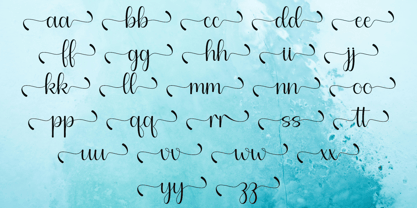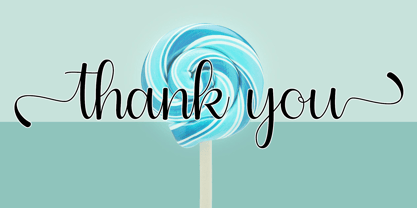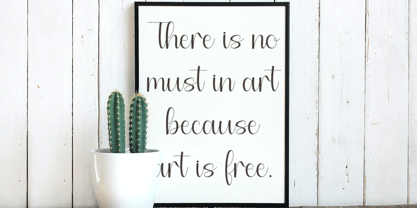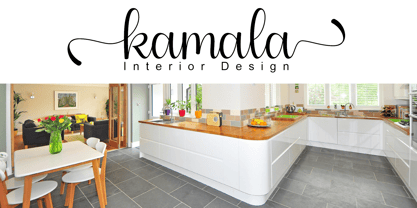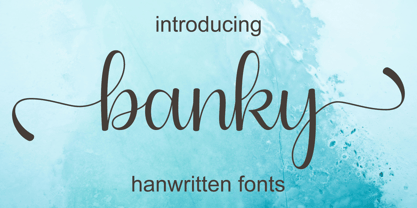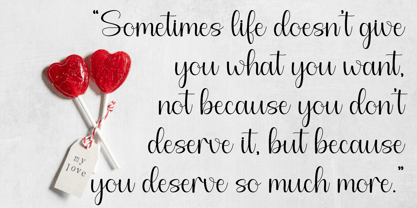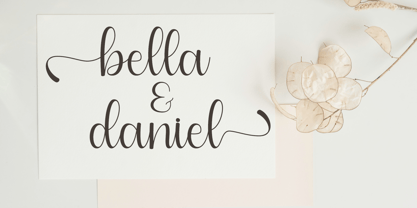
Lentisel
by Hardiboy Design
The Lentisel Font Family was designed by Hardiman Siswanto and published by Hardiboy Design. Lentisel contains 1 styles. More about this family
Lentisel is a sweet and cursive handwritten font. This gentle font will look gorgeous on a variety of design ideas. It will add a joyful and romantic touch to each of your projects! Perfectly fit for branding, logo, wedding things, greeting cards, fashion, lookbook, marketing promotion, and any time you want your design to look fancy and elegant but still casual.
Designers: Hardiman Siswanto
Foundry: Hardiboy Design